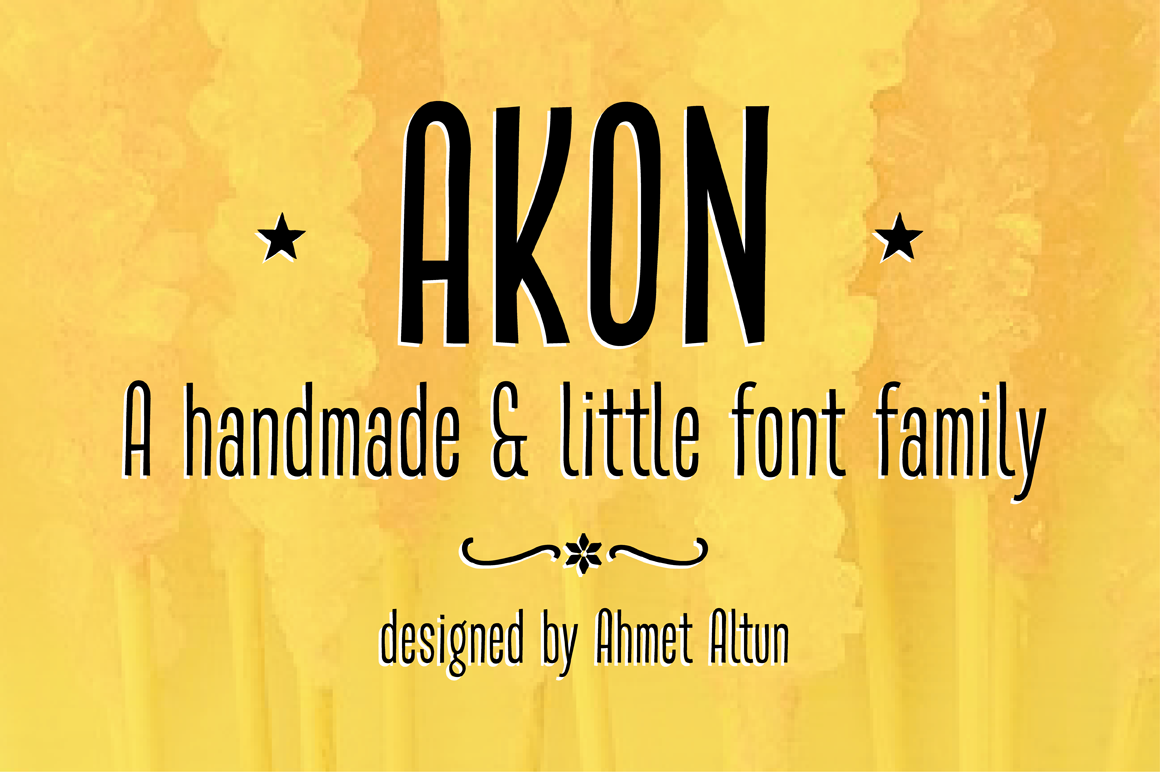
Akon Font Family
Akon Font Family comes in 2 weights; Regular and Bold. It is completely hand-drawn. The Akon Font Family has a few ornaments and stylistic alternates,ligatures,small capitals,Scientific Inferiors and so. With this font family, you can create eye-pleasing and nice works such as posters, printings, t-shirts, adds, magazines etc.